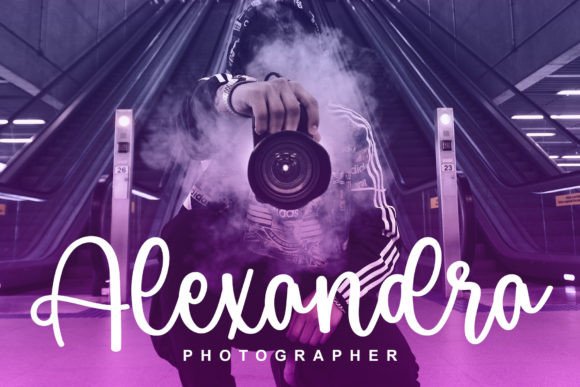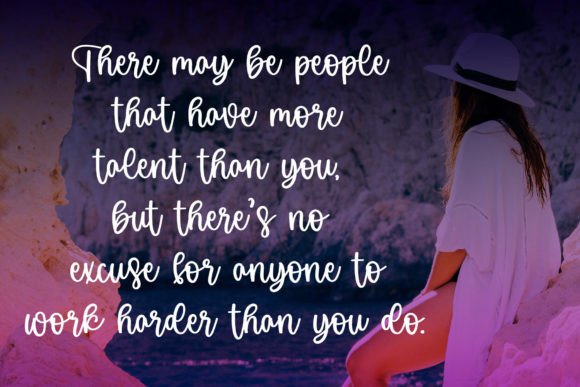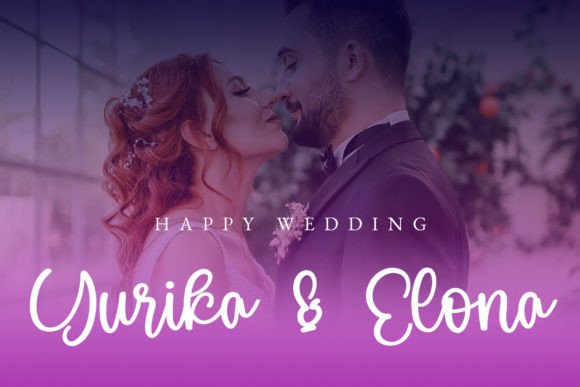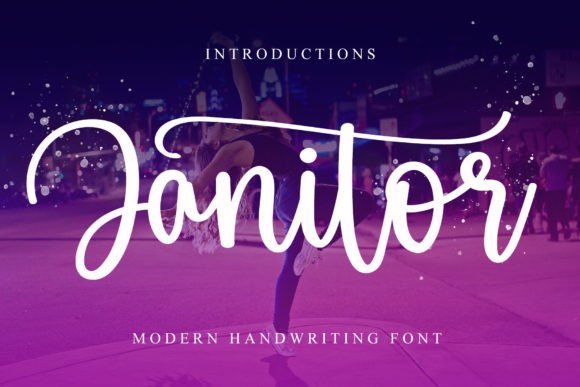
Introduction to Janitor Font
Janitor is a characterful and cute handwritten font.
This font dedicated to awesome celebration days is perfect for writing wedding invitations, cards, or any other design that requires a soft, characterful touch This font is PUA encoded which means you can easily access all the glyphs and ligatures.
Janitor Font offers exceptional quality and versatility, making it a valuable addition to your design toolkit. Whether you’re creating for personal projects or commercial use, Janitor Font delivers professional results.